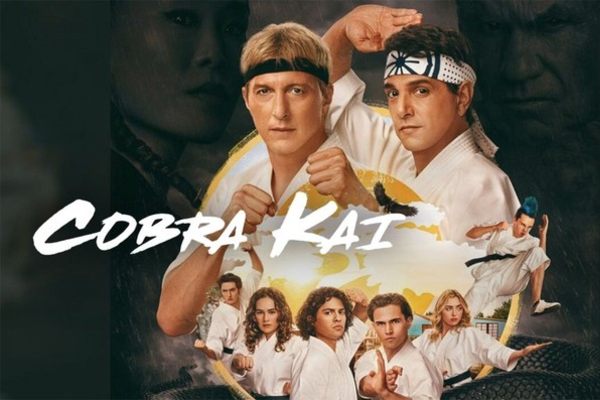
The Cobra Kai logo uses bold, distressed lettering with a rugged martial-arts style. It has some strong block shapes and weathered texture create which make it feel energetic, and give it a definite retro feel suited to action-themed designs.
The font used for download is one called Dead Stock, which closely recreates the distinctive Cobra Kai lettering style. It is available below for download, and can be used for all personal design projects.
Cobra Kai is a martial-arts comedy-drama series starring Ralph Macchio and William Zabka. It continues the rivalry between Daniel LaRusso and Johnny Lawrence, years after the original The Karate Kid films.